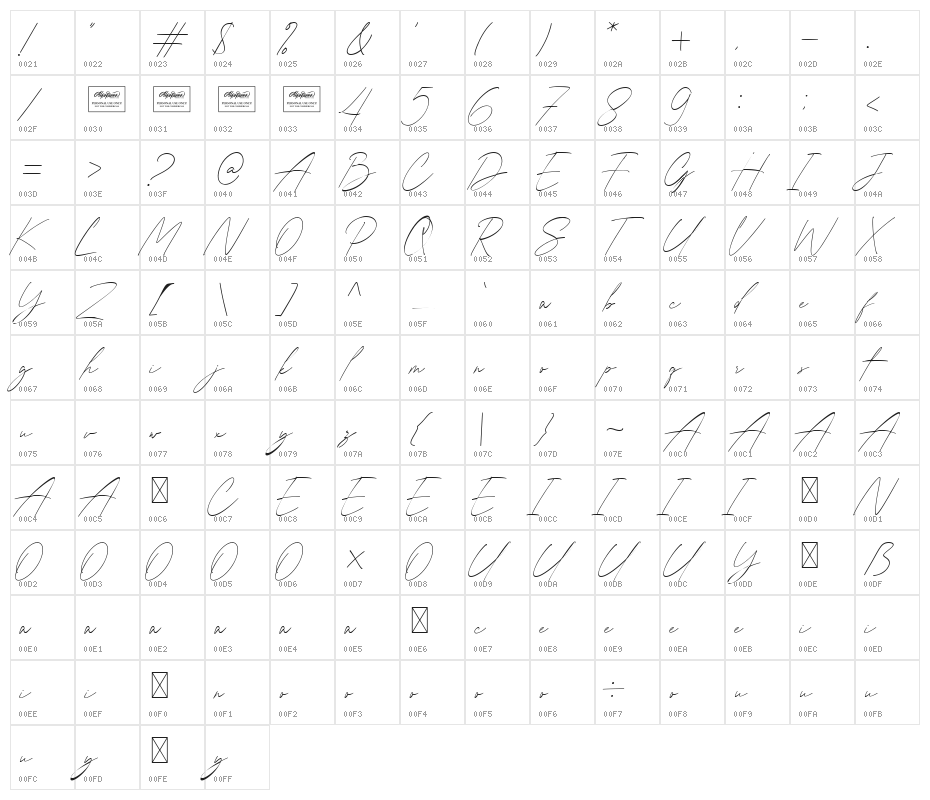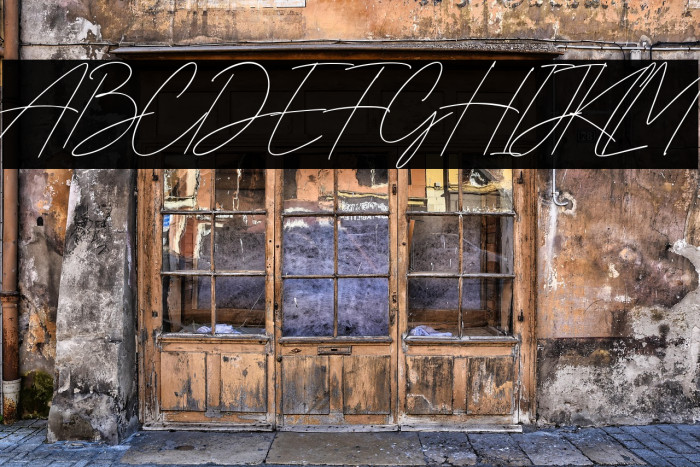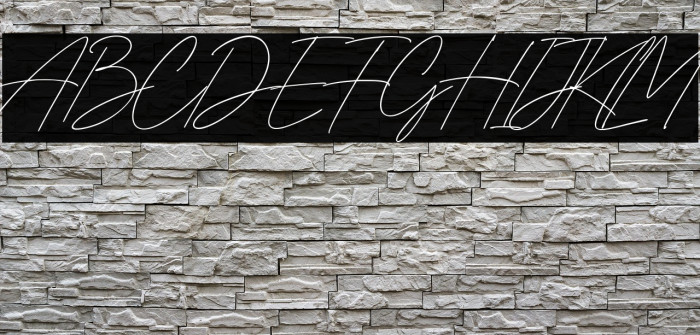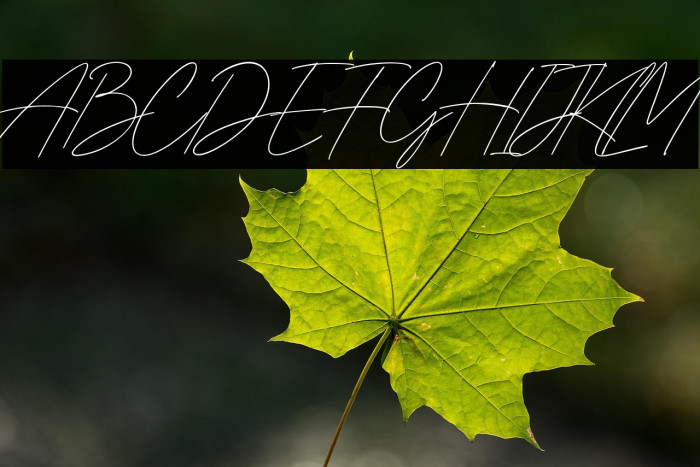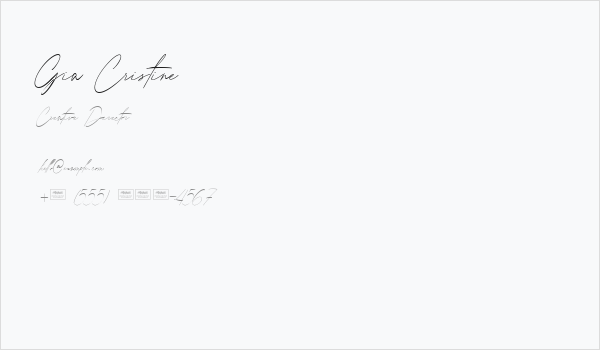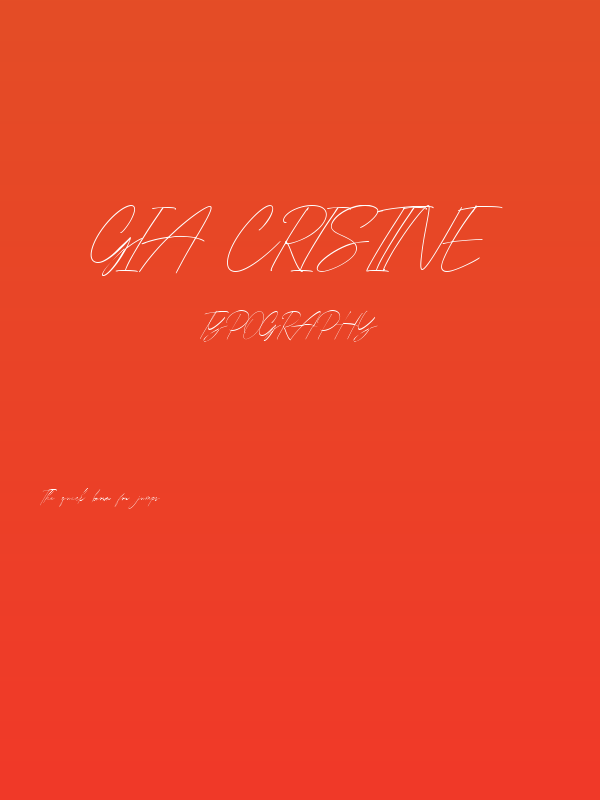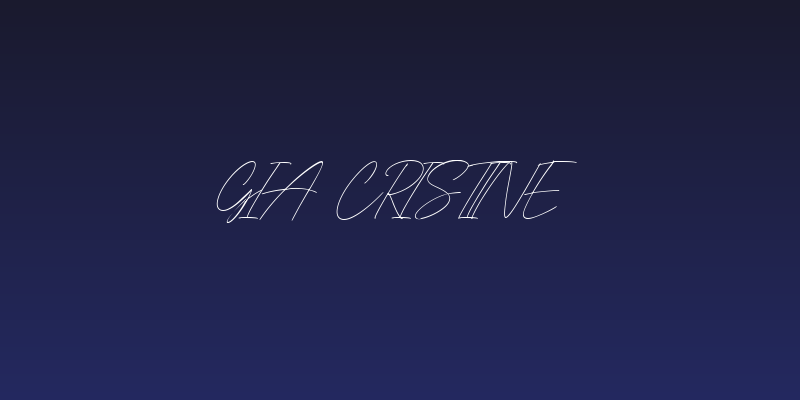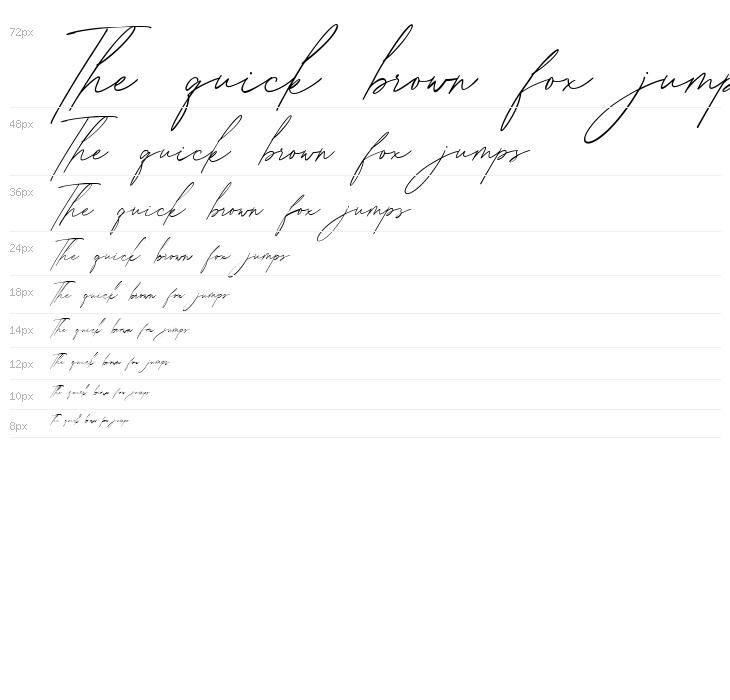
Gia Cristine Font
Gia Cristine Description
This font features an elegant and flowing script style, characterized by its thin, delicate strokes and graceful curves. The uppercase letters are tall and slightly slanted, giving a sense of sophistication and fluidity. The lowercase letters maintain a consistent flow, with smooth connections between characters, enhancing the cursive appearance. Numbers and special characters are designed with the same attention to detail, ensuring a cohesive look throughout. The overall aesthetic is refined and stylish, making it suitable for projects that require a touch of elegance.
| Use Case | Logos, Invitations, Personal Stationery |
| Proposed Projects | Ideal for wedding invitations, elegant branding, personal stationery, and high-end product packaging. |